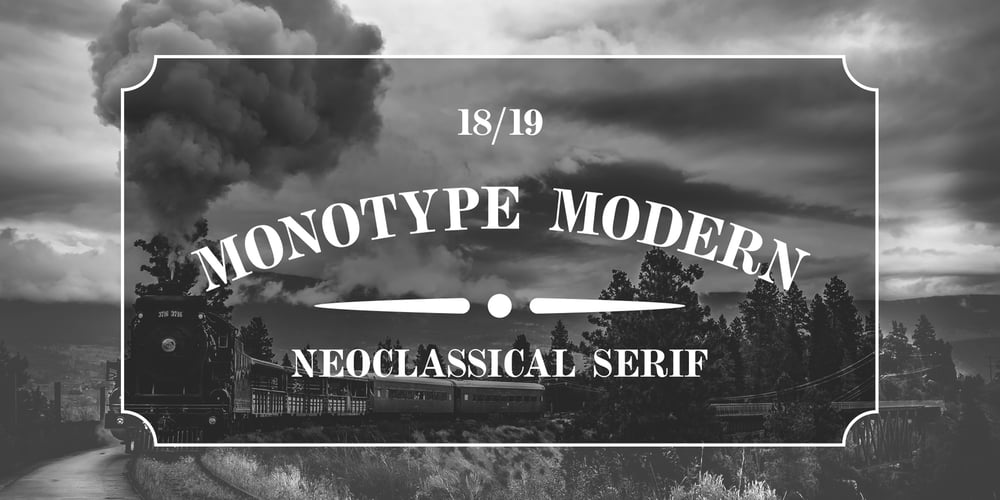
Monotype Modern MT
Monotype Modern MT font
Monotype Modern MT Font Family was designed by Monotype Design Studio and published by Monotype. Monotype Modern MT contains 8 styles and family package options. Monotype Modern, the first typeface produced by Lanston Monotype, was released in 1896, the same year the company introduced its hot metal typeseting machine. It is a Victorian variation on the vertically stressed, high-contrast Bodoni model.